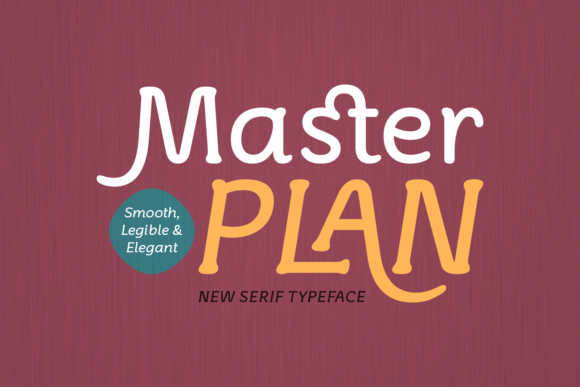
Unleash your inner artist and embark on a typographic adventure with Master Plan Font, a captivating serif font family that oozes personality and charm. Its playful nature dances effortlessly with a touch of elegance, making it the perfect choice for designers seeking to inject a spark of creativity into their projects.
Dive into a world of boundless possibilities with Master Plan Font, a font family brimming with versatility and imagination. Whether you're a seasoned designer or just starting your creative journey, this font will elevate your work to new heights. Its diverse range of weights and styles empowers you to craft designs that speak to your unique vision, allowing you to create masterpieces that resonate with your audience.
With Master Plan Font, your words take center stage, captivating readers with their distinctive charm. Its carefully crafted letterforms dance across the page, evoking emotions and leaving a lasting impression. Experience the joy of typography as your designs transform into visual symphonies, enchanting all who behold them.
Step into the world of Master Plan Font and let your creativity soar. Its playful spirit breathes life into your projects, bringing forth a sense of joy and wonder. Unleash your boundless imagination and weave captivating tales with each stroke of your pen or click of your mouse. The possibilities are endless, waiting for you to explore and discover.